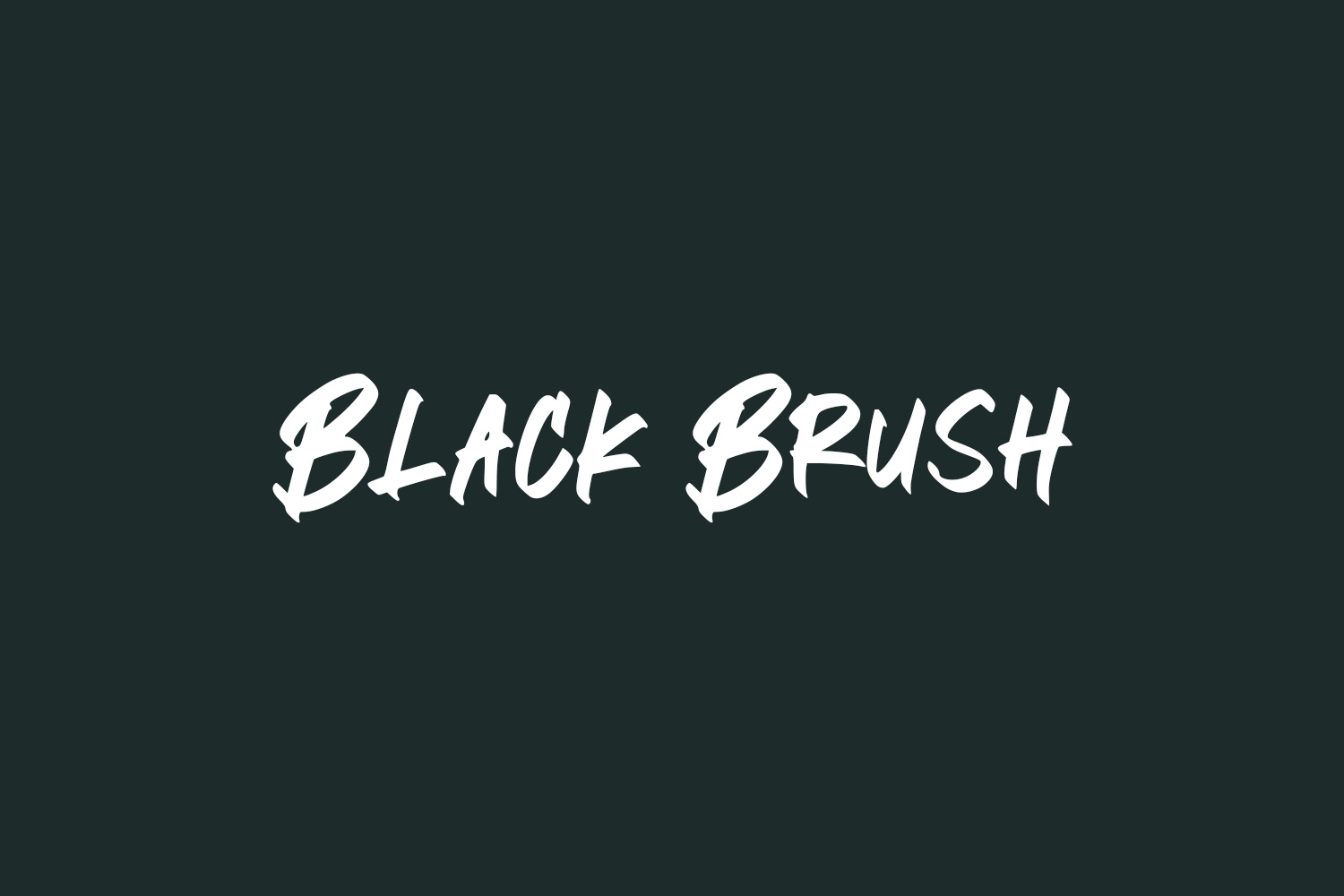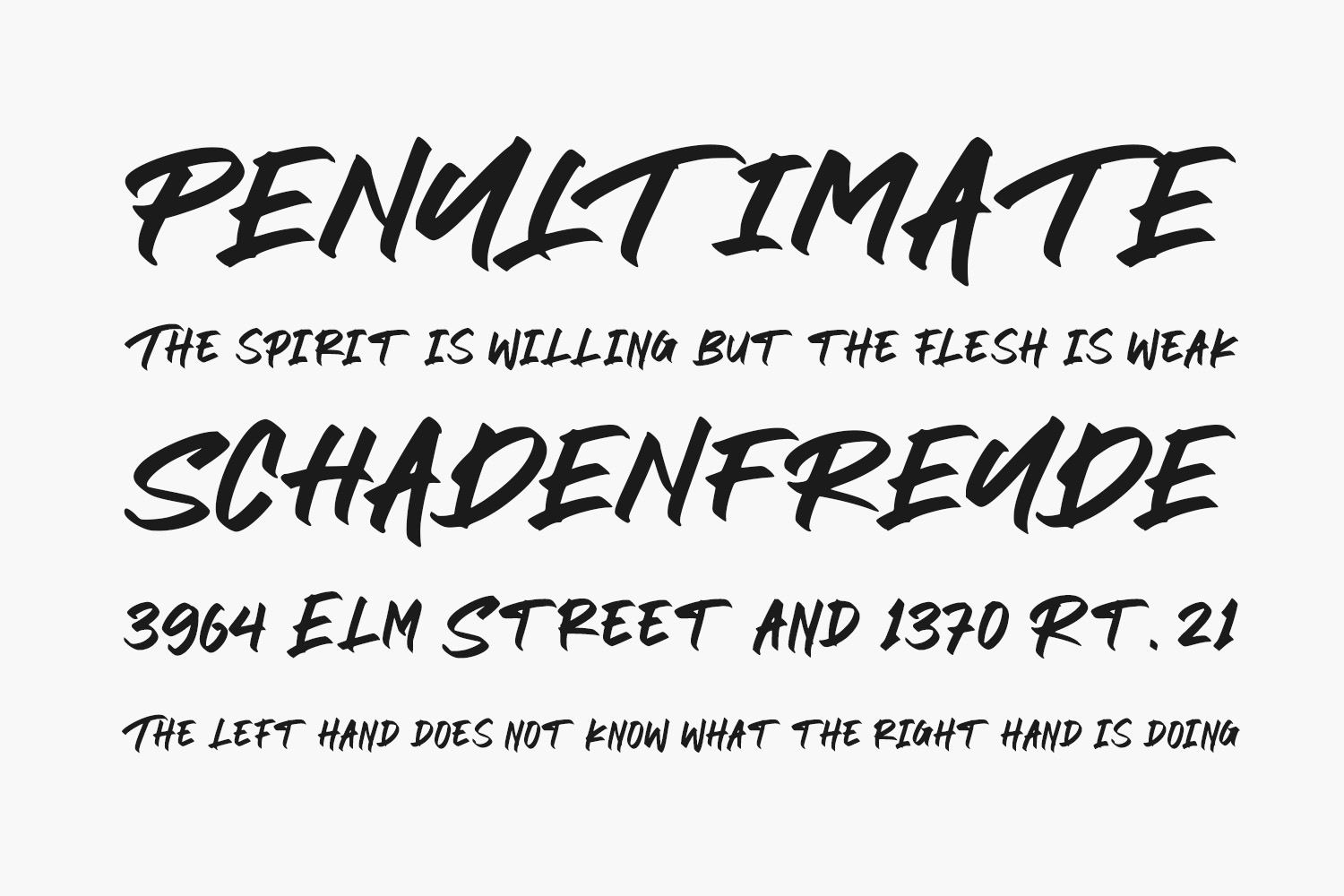
Black Brush Free Font Family is a bold, brushed display font. Urban styled and trendy, this font will make the ideal choice for a wide range of casual or informal designs. Black Brush Free Font Family was designed by Letterena Studios and is free for personal use only. Please purchase the full version for commercial use.